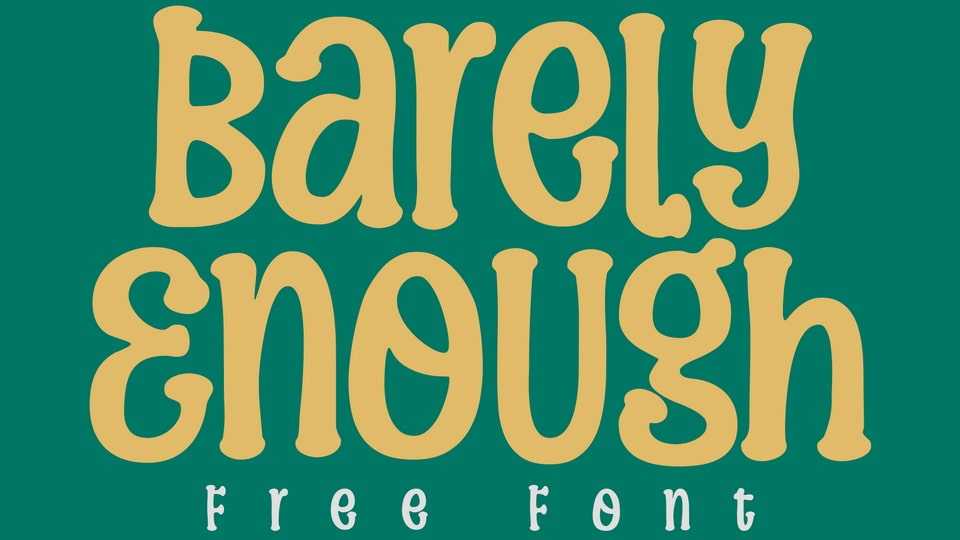
Download Barely Enough font, a whimsical typeface with a playful look. Barely Enough will be perfect for stickers, greeting cards, logos, posters, or anything that requires a fun and cute style.
Designer: Niskala Huruf